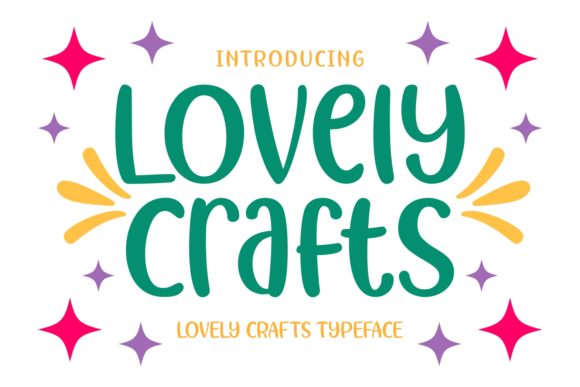
Lovely Crafts Font: The Perfect Choice for Fun and Playful Designs
Lovely Crafts Font is a delightful and charming display font that embodies the spirit of authenticity and joy. Its playful and fun design makes it an ideal choice for any children’s activity or school project. In this article, we’ll dive into the world of Lovely Crafts Font and explore its features, benefits, and uses.
What is Lovely Crafts Font?
Lovely Crafts Font is a display font designed to bring a touch of whimsy and fun to any design project. Its unique and playful design makes it perfect for use in children’s books, school projects, and activity sheets. The font is carefully crafted to evoke a sense of joy and authenticity, making it a great choice for any project that requires a friendly and approachable tone.
Features of Lovely Crafts Font
Lovely Crafts Font comes with a range of features that make it a versatile and practical choice for designers. Some of its key features include:
- Playful Design: Lovely Crafts Font has a playful and fun design that is sure to capture the attention of your audience.
- Authentic Feel: The font has an authentic feel that makes it perfect for use in children’s activity sheets and school projects.
- Easy to Read: Lovely Crafts Font is easy to read, making it a great choice for use in body text and headings.
- High-Quality: The font is of high quality, ensuring that it looks great in any design project.
Benefits of Using Lovely Crafts Font
There are many benefits to using Lovely Crafts Font in your design projects. Some of the key benefits include:
- Unique Design: Lovely Crafts Font has a unique design that sets it apart from other fonts.
- Time-Saving: The font is easy to use and can save you time in your design projects.
- Versatile: Lovely Crafts Font is versatile and can be used in a range of design projects, from children’s books to school projects.
- Cost-Effective: The font is a cost-effective solution for designers who want to add a touch of fun and playfulness to their designs.
Uses of Lovely Crafts Font
Lovely Crafts Font is a versatile font that can be used in a range of design projects. Some of the most popular uses of the font include:
- Children’s Books: Lovely Crafts Font is perfect for use in children’s books, adding a touch of fun and playfulness to the text.
- School Projects: The font is ideal for use in school projects, making it easy for students to create fun and engaging designs.
- Activity Sheets: Lovely Crafts Font is a great choice for use in activity sheets, such as coloring pages and puzzles.
- Posters: The font can be used to create eye-catching posters that are sure to grab the attention of your audience.
Tips for Using Lovely Crafts Font
Here are some tips for using Lovely Crafts Font:
- Use it in Combination with Other Fonts: Use Lovely Crafts Font in combination with other fonts to create a unique and visually appealing design.
- Experiment with Different Sizes: Experiment with different font sizes to create visual interest in your design.
- Use it in Color: Use Lovely Crafts Font in color to add a pop of color to your design.
- Keep it Simple: Keep your design simple and clean to ensure that the font is the focus of the design.
Lovely Crafts Font is a playful and fun display font that embodies authenticity and joy. Its unique design makes it perfect for use in children’s activity sheets, school projects, and other design projects that require a friendly and approachable tone. With its range of features, benefits, and uses, Lovely Crafts Font is a great choice for designers who want to add a touch of fun and playfulness to their designs.
- What is Lovely Crafts Font? Lovely Crafts Font is a playful and fun display font designed for use in children’s activity sheets, school projects, and other design projects.